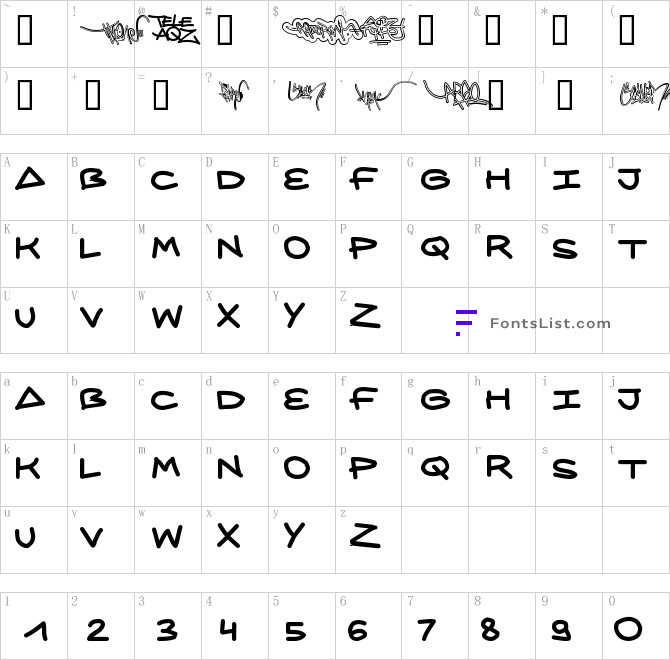
- Font Name:AQZ crew
- Copyright:Font designed by Télé for all the AQZ crew " Koa Slack Scaner Argo Zebre Ibiza "
AQZ-crew-copy-2-.ttf is a very beautiful artistic font, AQZ-crew-copy-2-.ttf is widely used in the design and printing of various books and pictures,AQZ-crew-copy-2-.ttf has a strong visual impact,AQZ-crew-copy-2-.ttf is a commonly used font in newspapers, magazines and books, and is used in posters, e-commerce Poster design, store design, logo design, font design and other fields.AQZ-crew-copy-2-.